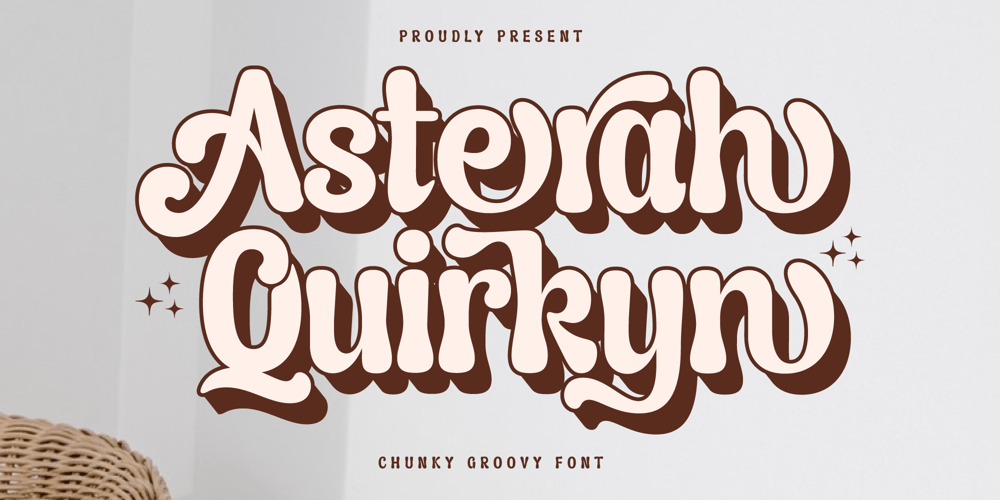
Asterah Quirkyn Font Family was designed by Heru Utama Putra and published by Letterena Studios. Asterah Quirkyn contains 2 styles and family package options. Asterah Quirkyn is a chunky groovy display font. Each character exudes a friendly charm, making it perfect for whimsical designs. The lively personality of Asterah Quirkyn brings a burst of happiness to your creative projects, ensuring a delightful and engaging visual experience.